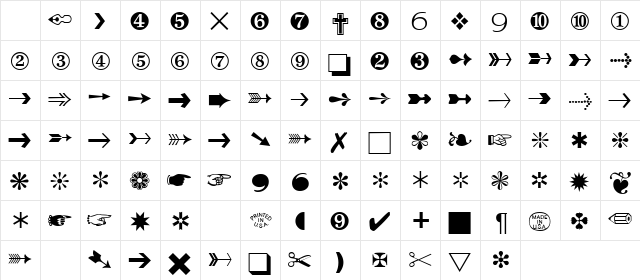
DataSymCDB Normal
Design Context for DataSymCDB Typeface
DataSymCDB takes a measured approach to typography — its balanced proportions and neutral character make it a reliable workhorse for both digital and print work.